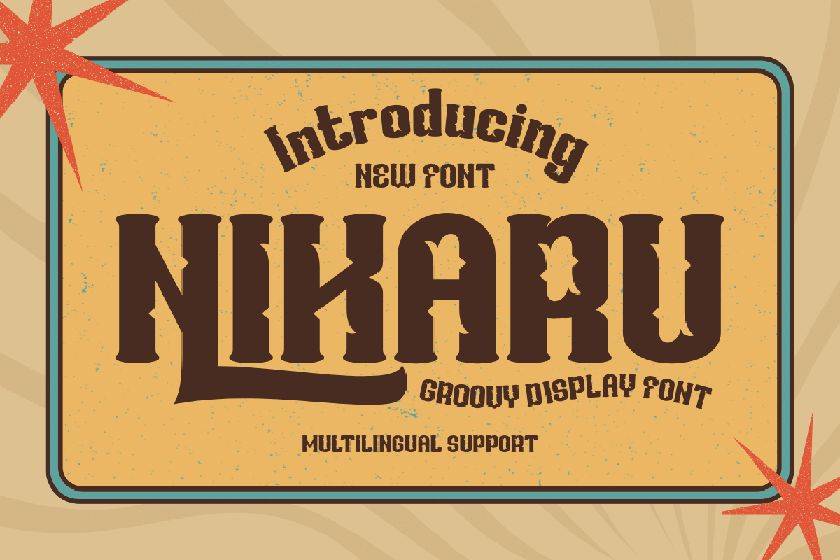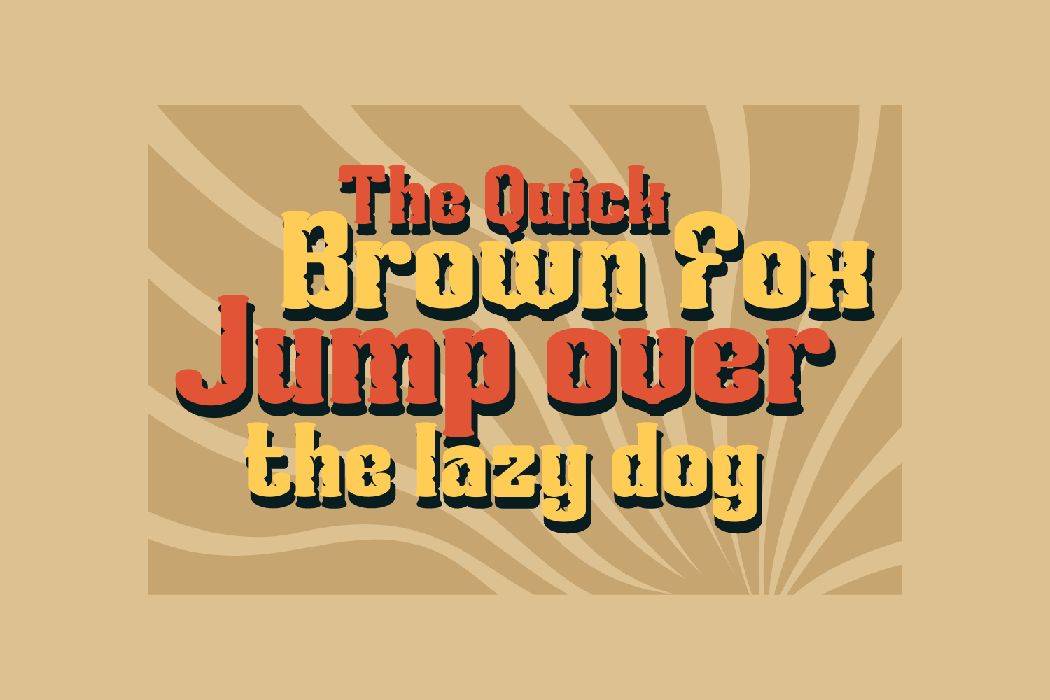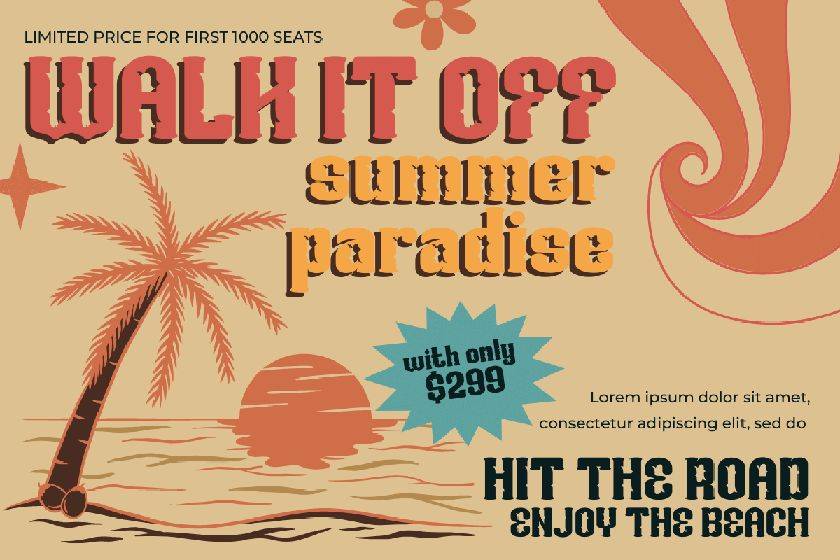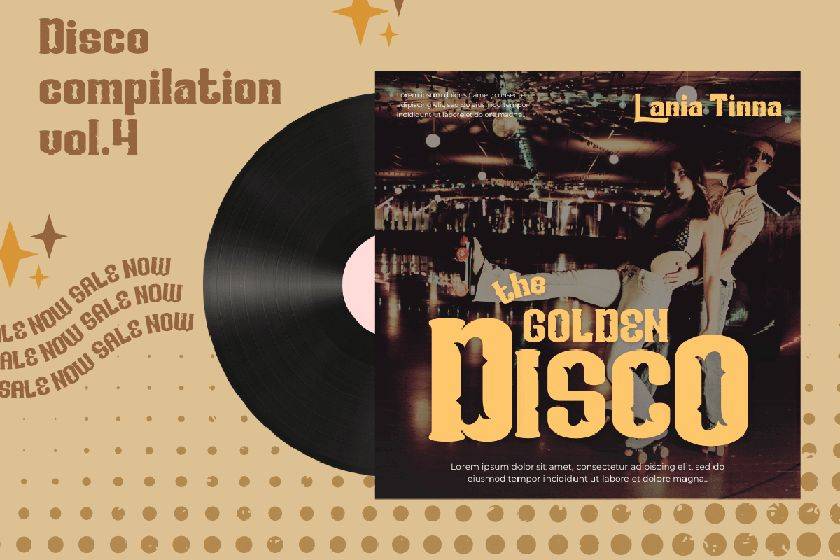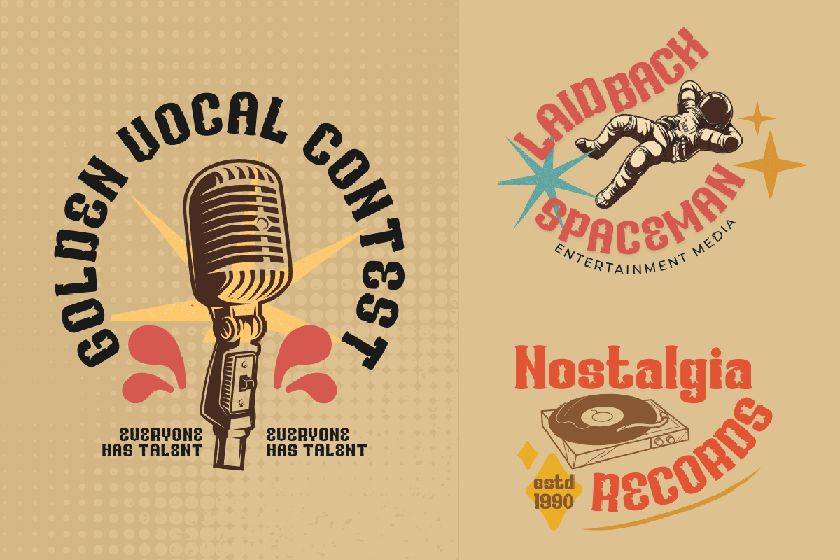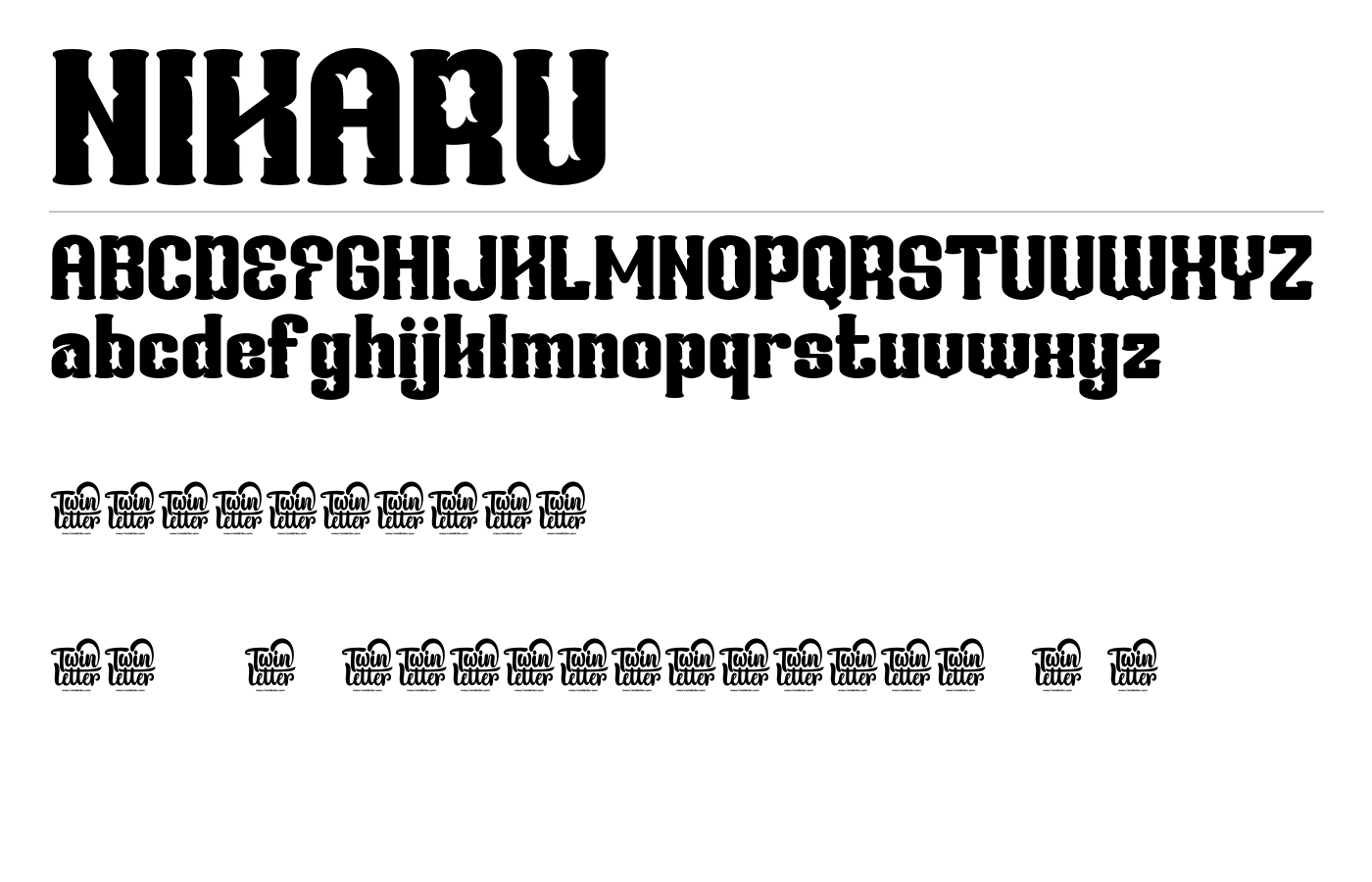
Nikaru is a bold slab serif font with a vintage Western flair, featuring thick, blocky letterforms and strong bracketed serifs that create a robust, eye-catching presence. Its high contrast and compact width give it a sturdy, confident feel, making it perfect for impactful headlines, logos, and branding projects that want to evoke a sense of rugged charm or retro style. This font shines in designs that need character and strength, especially for packaging, posters, and editorial use where a bold statement is key.
Nikaru Font
About Nikaru Font
| Font family | Nikaru Font |
| Designer | Murozakul Akhsan |